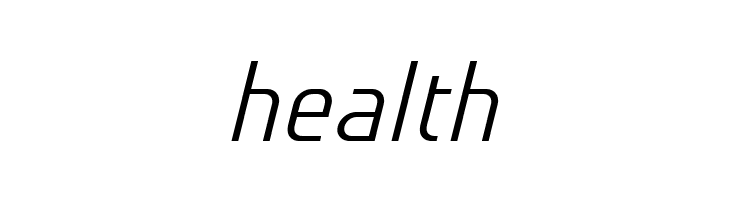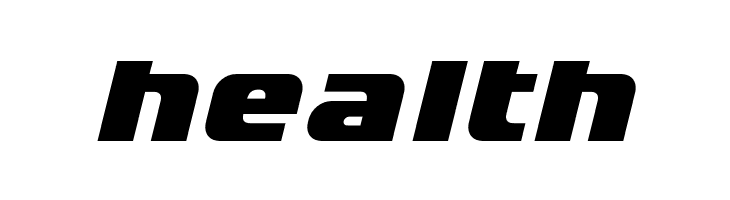
A sleek, modern italic font with a slightly condensed form and consistent stroke weight.
A bold, geometric font with rounded edges and minimal contrast.
A sleek, modern font with clean lines and a minimalist, condensed style.
A sleek, modern italic font with a dynamic and streamlined appearance.
A sleek, modern, and italic font with a light and airy feel.
A modern, geometric sans-serif font with uniform stroke widths and a minimalist design.
A bold, modern font with rounded edges and a strong presence.
A bold, italicized font with a modern, sleek, and slightly condensed style.
A bold, italicized font with a modern, dynamic style and strong visual impact.
A bold, italic font with a modern, geometric design and strong visual impact.